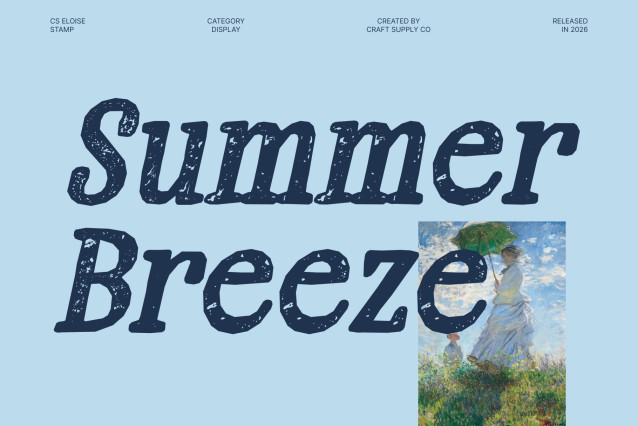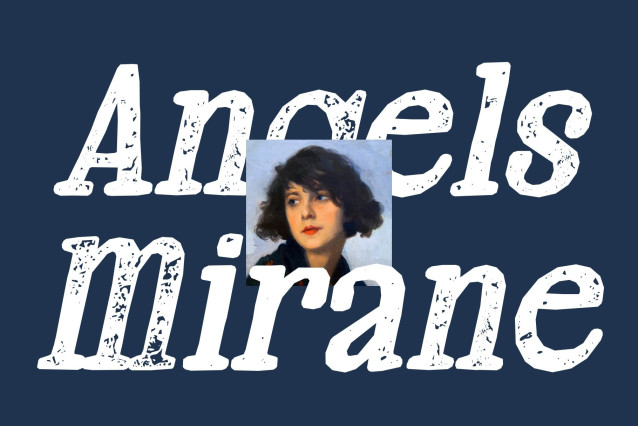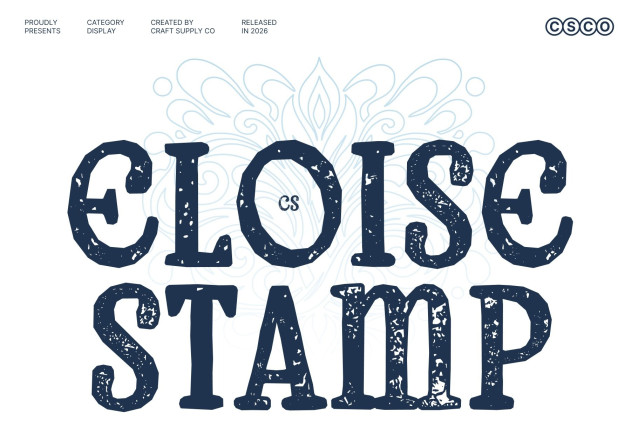
CS Eloise Stamp Font
CS Eloise Stamp – Aesthetic Font: Graceful, Elegant, and Inviting
Modern Display Serif with Rounded Beauty
This font is a modern display serif font that combines soft, rounded shapes with refined proportions. Its graceful curves and subtle elegance create a timeless design that balances classic sophistication with contemporary charm. The aesthetic touch of the letterforms brings a beautiful and inviting atmosphere, ideal for premium and luxurious projects.
Balanced Elegance and Modern Appeal
The design of this font blends classic and modern influences effortlessly. Rounded serifs provide a soft, welcoming feel, while the refined structure maintains a sleek and sophisticated appearance. Whether used in branding, editorial layouts, or invitation designs, this font captures the essence of beauty and luxury with an approachable tone.
Stamp Texture with Vintage Softness
Enhanced with a distinctive stamp effect, this font gains a delicate vintage personality. The textured, ink-pressed appearance introduces subtle imperfections inspired by traditional printing techniques, adding warmth, depth, and an artistic handcrafted charm to every letterform.